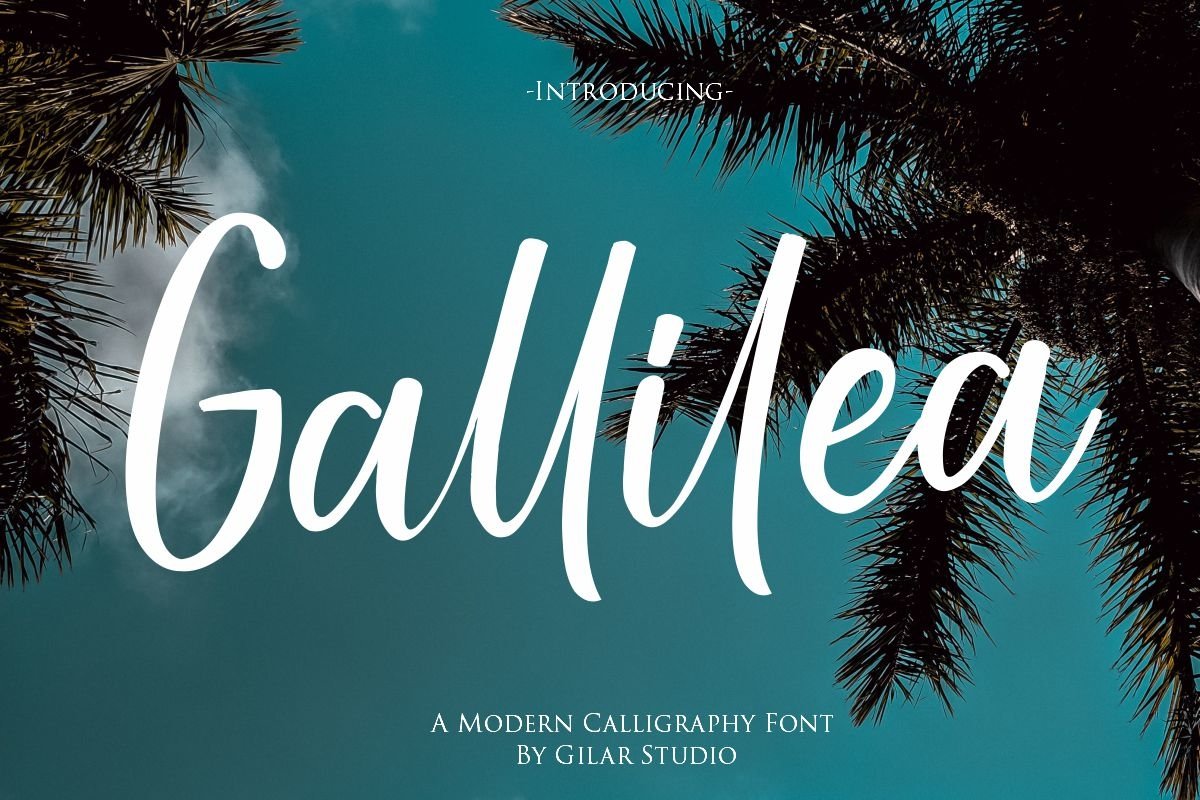
Gallillea | A Modern Calligraphy Font
I’m pleased to introduce my handwritten font Gallillea
Modern calligraphy uppercase letters are ideal for your wedding monograms and logos. Use this font for wedding invitations, branding, packaging, magazines, florist shops, social media, restaurant menus, greeting cards, headers and many more.
This font includes 141 stunning ligatures to make your text as close to a natural handwritten script as possible. It's perfect for wedding design projects, instagram, invitations, signatures, watermarks, logos, letterpress address, titles, birthday invitations, handwriting and other.